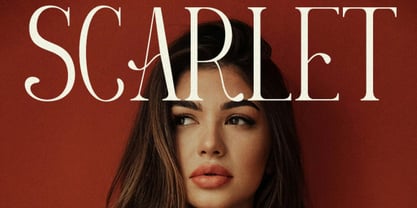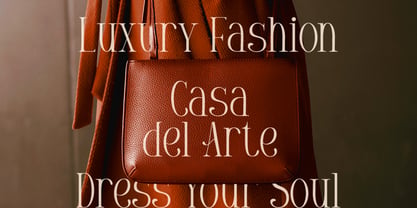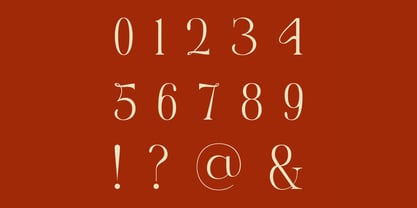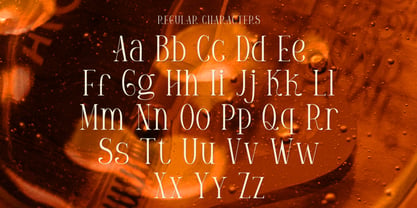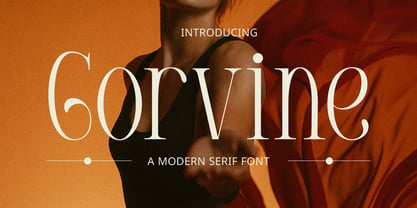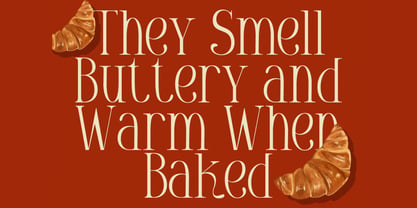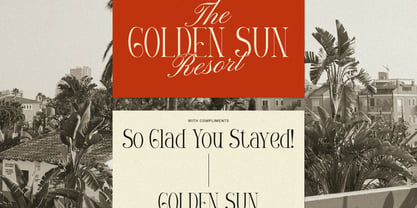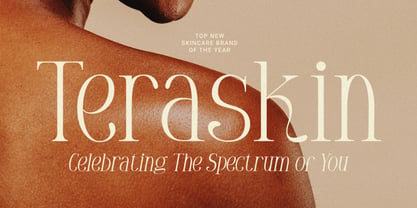
Gorvine
Gorvine Elegant Serif Font, a modern font perfect for adding elegance and style to your projects. Whether it’s for quotes, logotypes, magazine headers, or more, this versatile typeface ensures your text stands out beautifully. Suitable for Luxury branding, fashion magazines, editorial design, wedding invitations, high-end product packaging, beauty advertisements, jewellery branding, perfume labels, elegant website headers, boutique branding, upscale restaurant menus, art gallery promotions, exclusive event branding, sophisticated book covers, premium cosmetics.